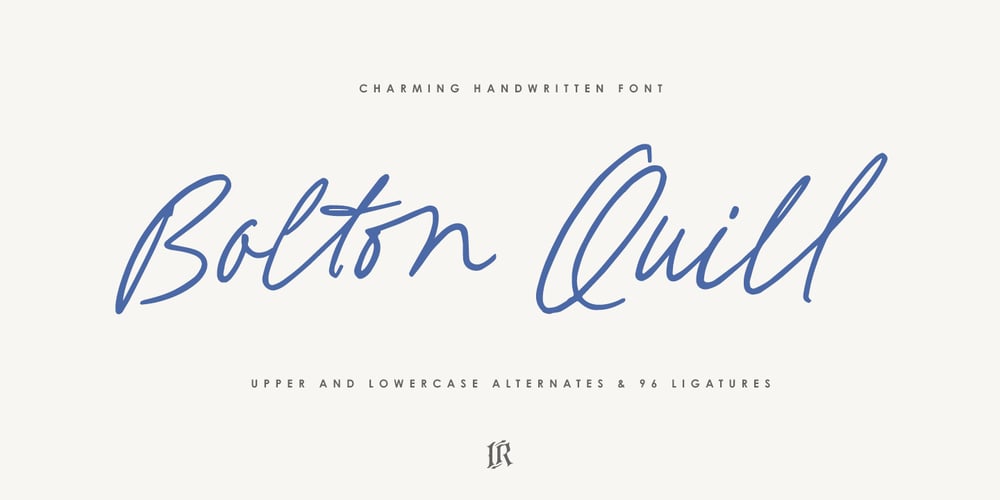
Bolton Quill Font Family was designed by Ivan Rosenberg and published by Ivan Rosenberg. Bolton Quill contains 1 styles and family package options. Bolton Quill is a charming handwritten font that combines elegance and casual flair. Its smooth, flowing strokes give it a personal touch, making it perfect for adding warmth and personality to invitations, branding, or social media posts. Whether you’re looking for a delicate script for a signature or a creative flourish for your designs, Bolton Quill offers a versatile and timeless appeal.